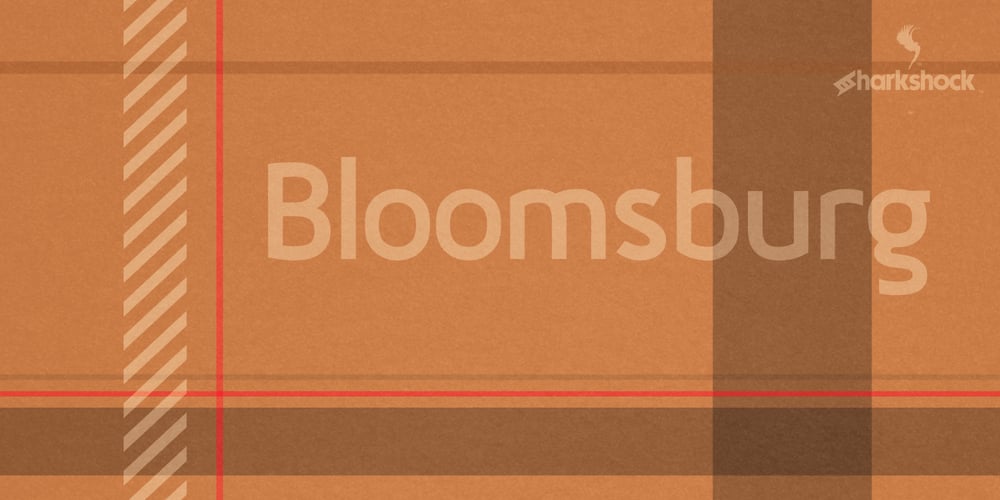
Bloomsburg Font Family was designed by Dennis Ludlow and published by Sharkshock. Bloomsburg contains 6 styles and family package options. Bloomsburg is a sharp, modern, everyday font with a multitude of uses. This family is characterized by its high legibility, delicate curves, and vertical cuts to most lowercase terminals. Its humanist features are most evident in the lightest versions making it a versatile choice for showcasing warmth and personality. Use Bloomsburg for eye catching headlines or try the Bold version for a company logo. A wide range of languages are supported including European accents and Cyrillic characters.